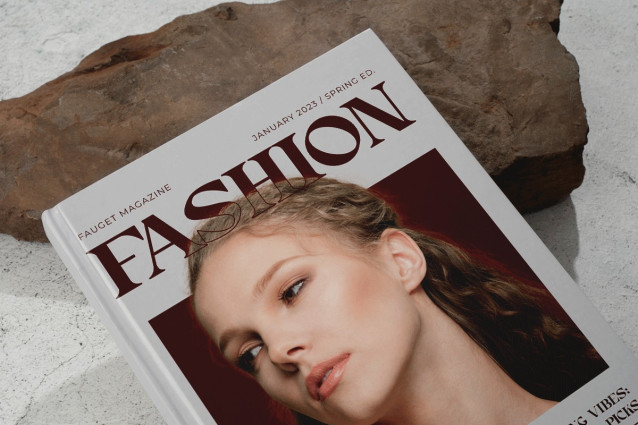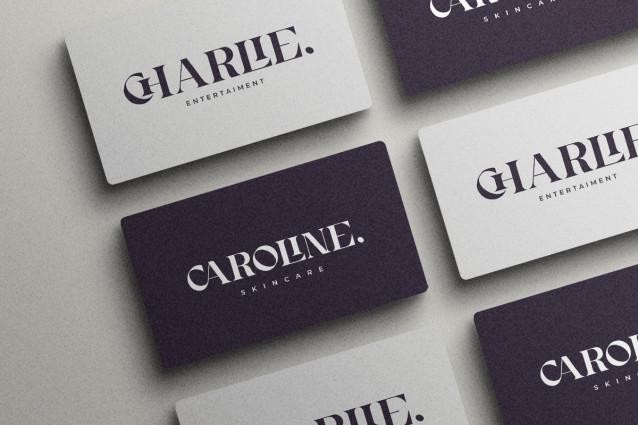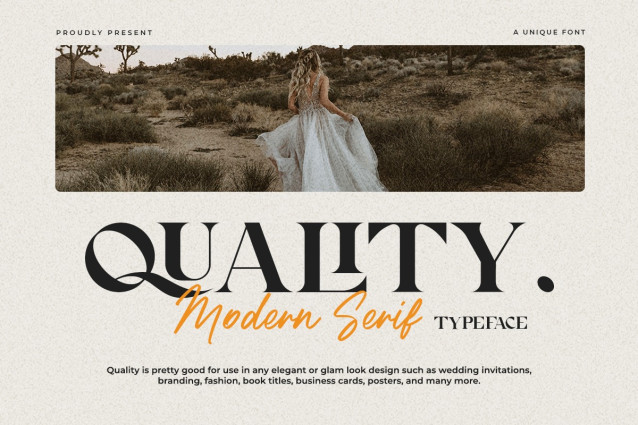
Quality Font
Quality Font – Classy Serif Font Many different types of serif fonts are available for all of us. Quality Classy Serif Font is one of the fonts with a modern, unique, and elegant look. This impression is what makes this font different from other serif fonts. Quality fonts have letter forms like other fonts that are firm but have long curved serifs. This font can be distinguished between letters easily. It can read clearly from a distance or near. The font is legible. Quality Classy Serif Fonts can use as digital and print fonts. The character of this font makes it one of the best fonts that have high compatibility when used for wedding invitations, branding, fashion, book titles, business cards, posters, and many others. The function must pay attention to the font size and theme. The elegant impression of the Quality Classy Serif font will make the product completed with the font have a high aesthetic value. It will look modern and attractive. With the presence of this font, it is hoped that it can increase your choices for serif font lovers in choosing the appropriate font for the object you are going to mix. Our collection of serif fonts is compatible for use as; Figma fonts, Canva fonts, Freepik Fonts, and Adobe Fonts. They also work as Windows Fonts and Apple Fonts. For your social media needs, you can use and install fonts in our collection of serif fonts to use as Instagram Fonts, Facebook Fonts, and Twitter Fonts.